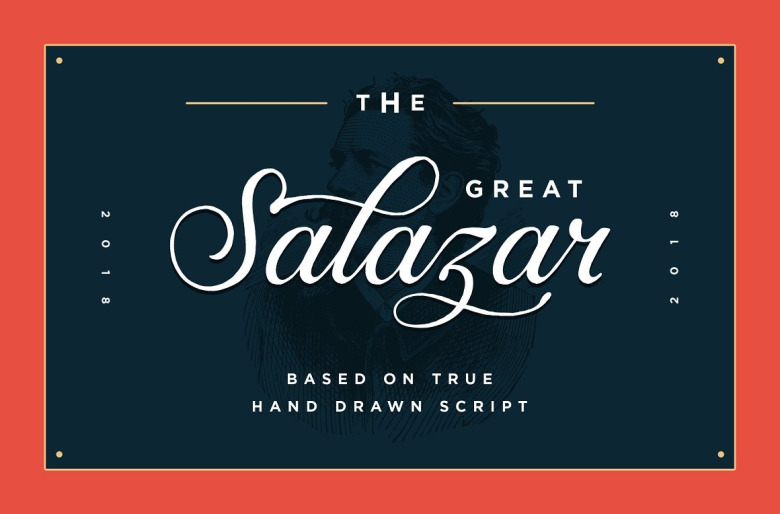
Salazar Font
Salazar is a handwritten script font manufactured by Konstantine Studio. With light stroke, condensed and fun character with a bit of ligatures. Crafted with care, holding on into the classic vibe what makes the great Salazar script have all of these strong vibes in your eyes.
Packed up with an swashed alternates in selected letters that possible to, and an end letter for every lowercase just in case you want a “no tail”end words.
Perfectly fit for any kind of vintage branding, paired with illustrations are easily eye catching. Logo, visual branding, website header, name, everything you need to touch with the vintage hand drawn feels.